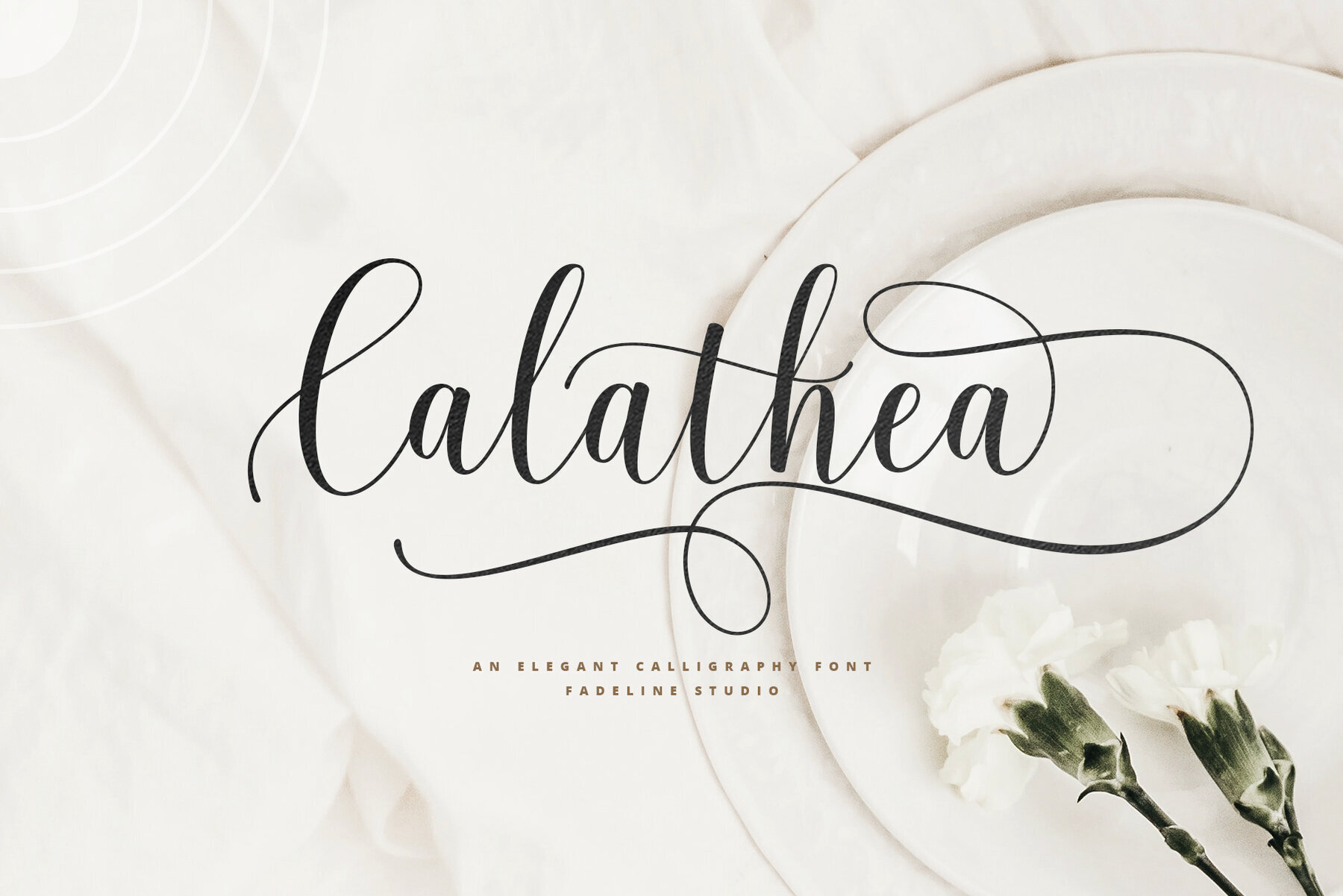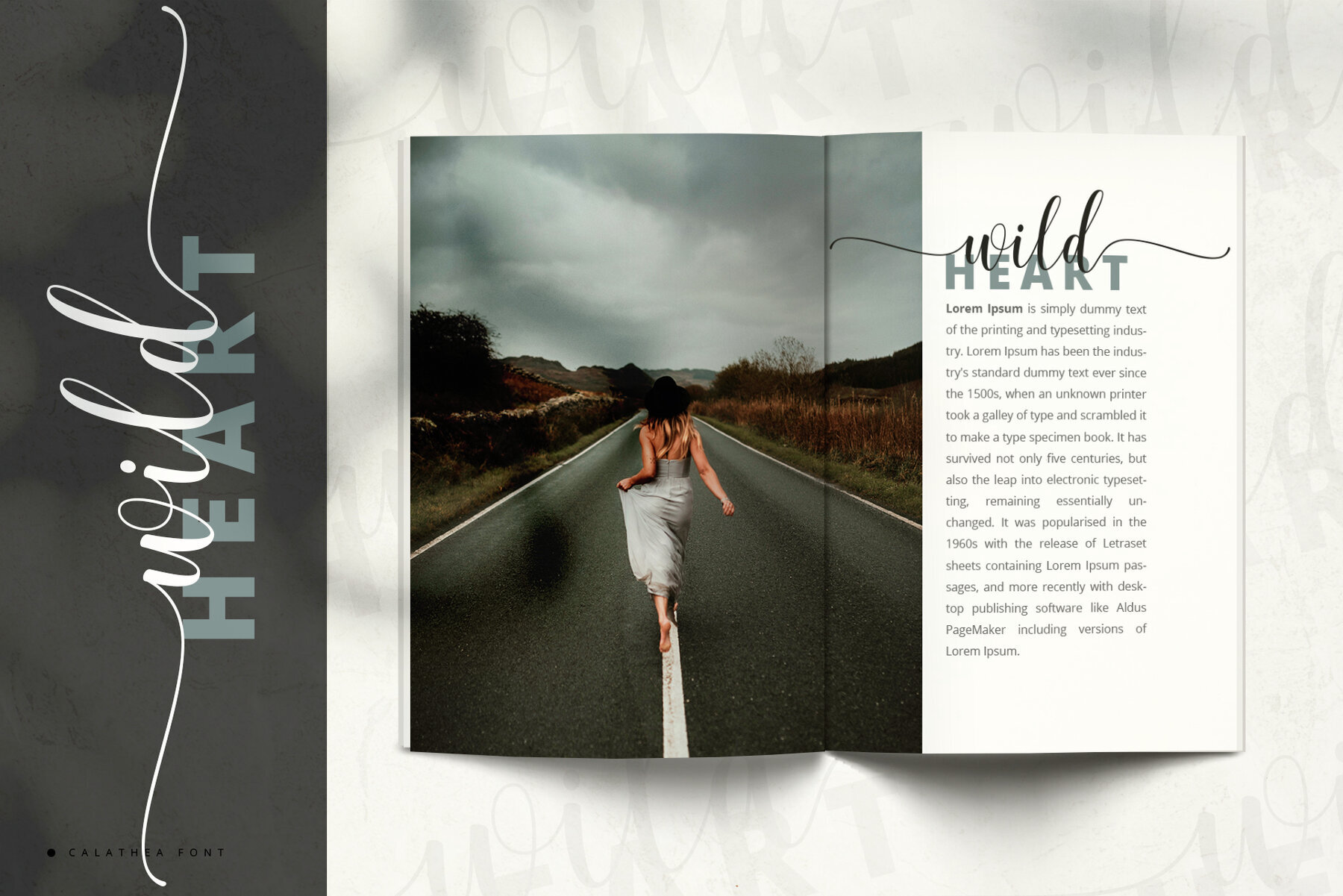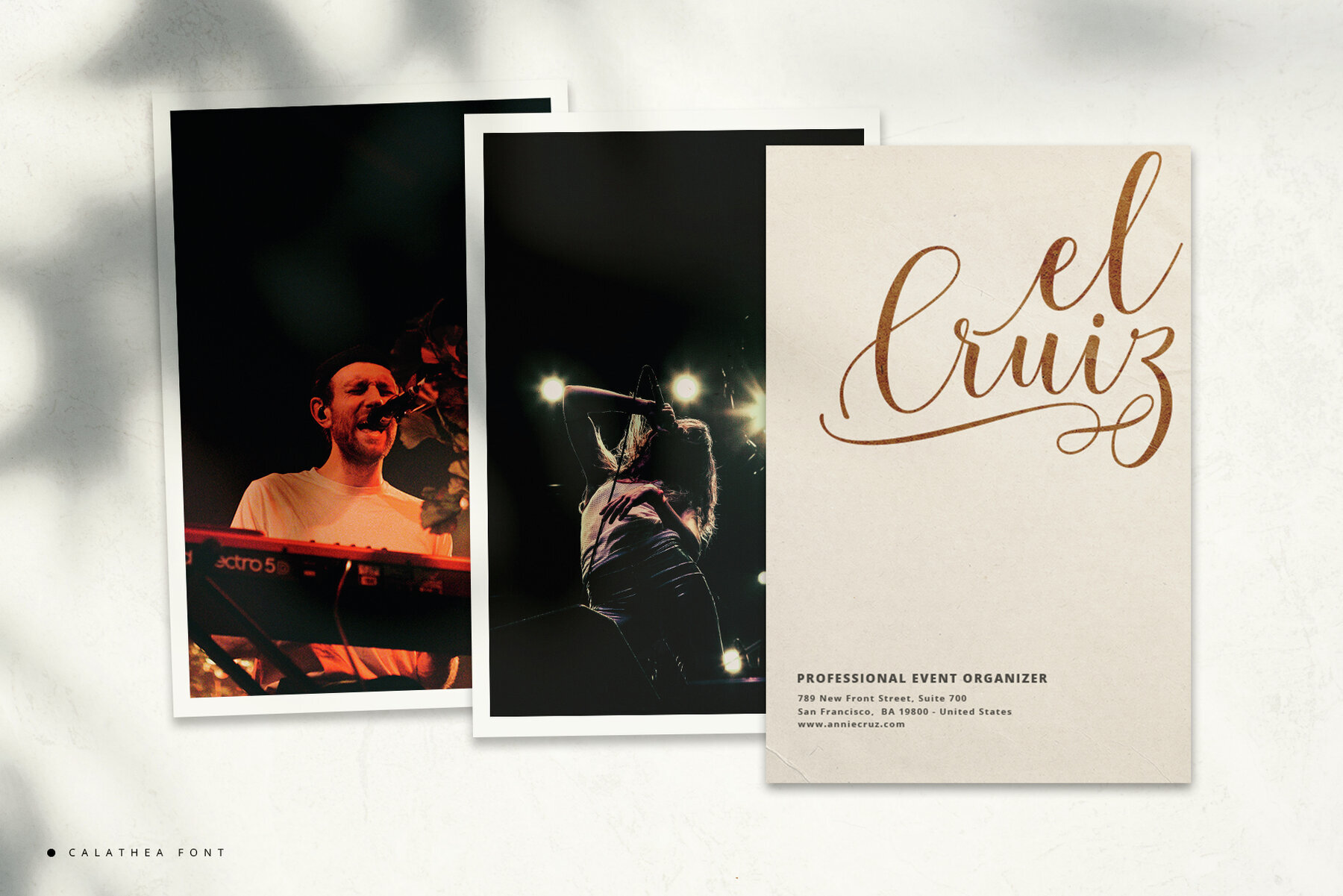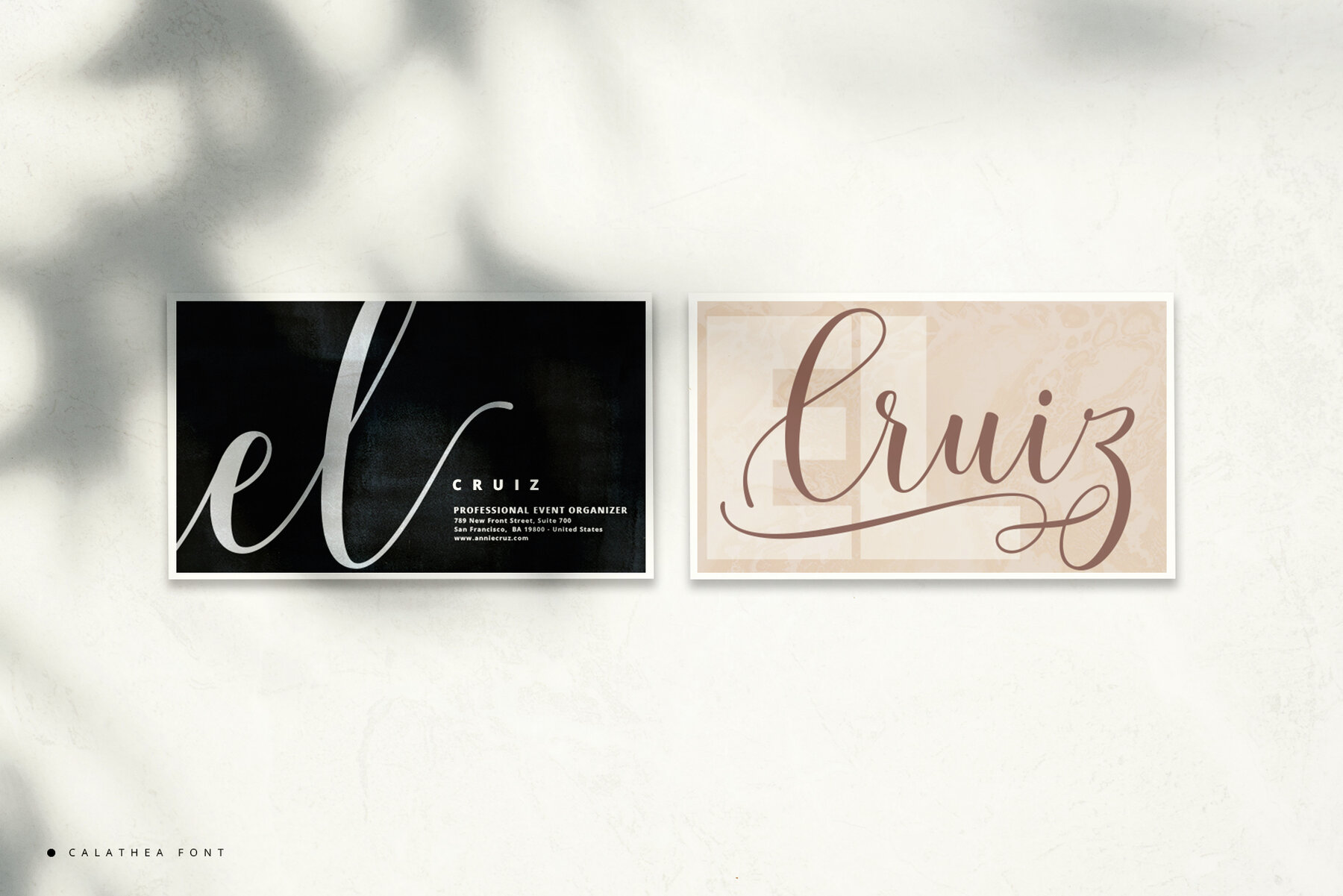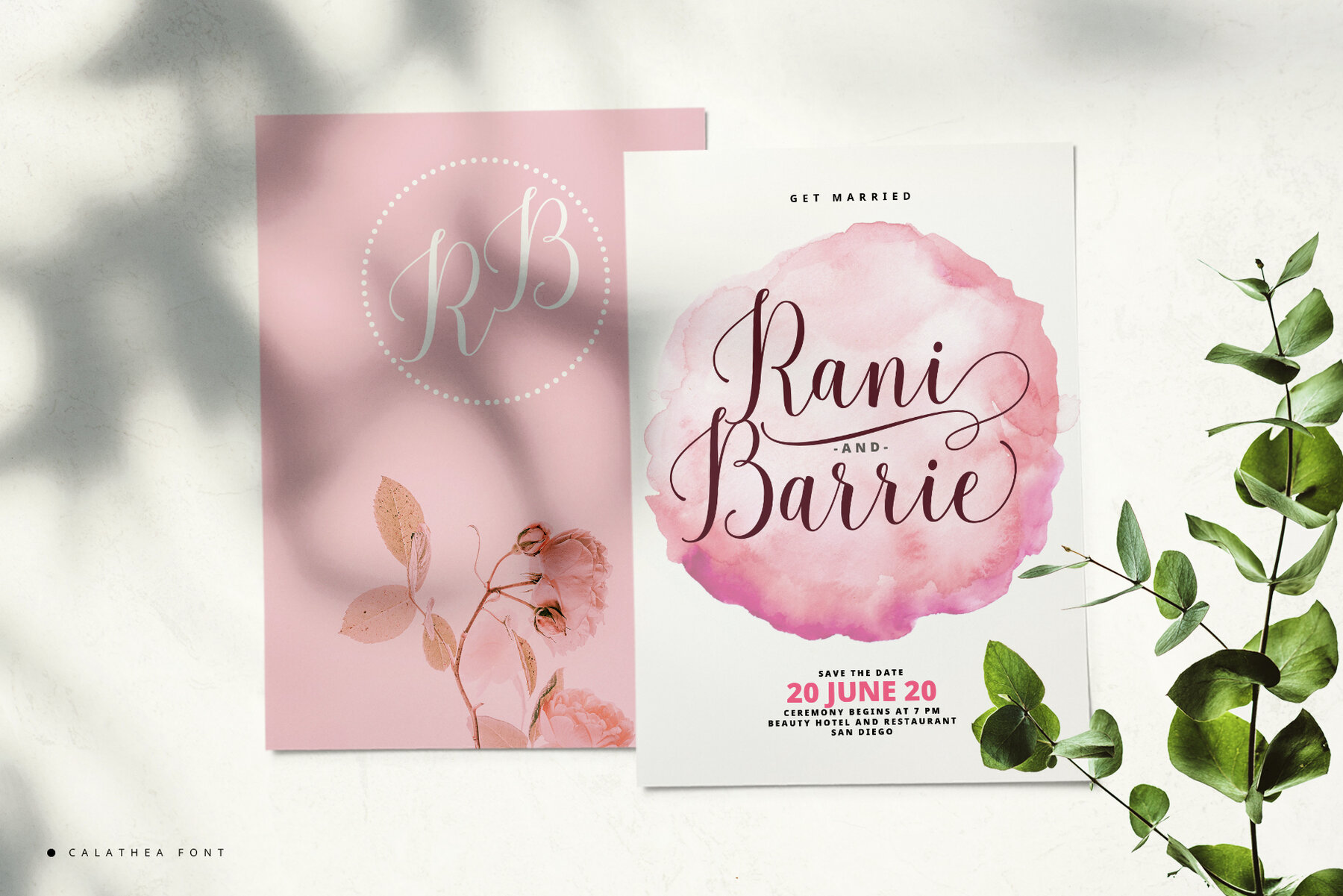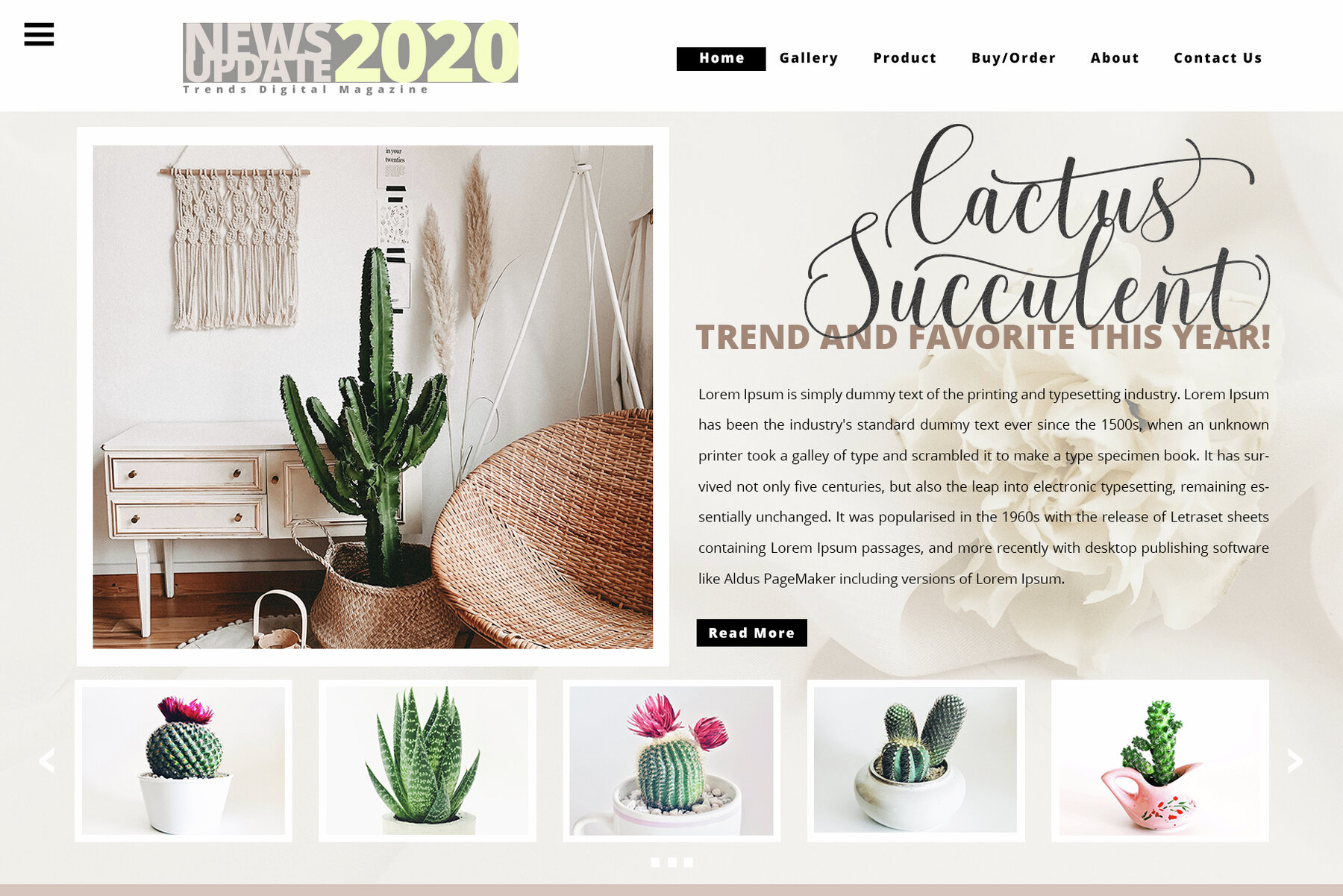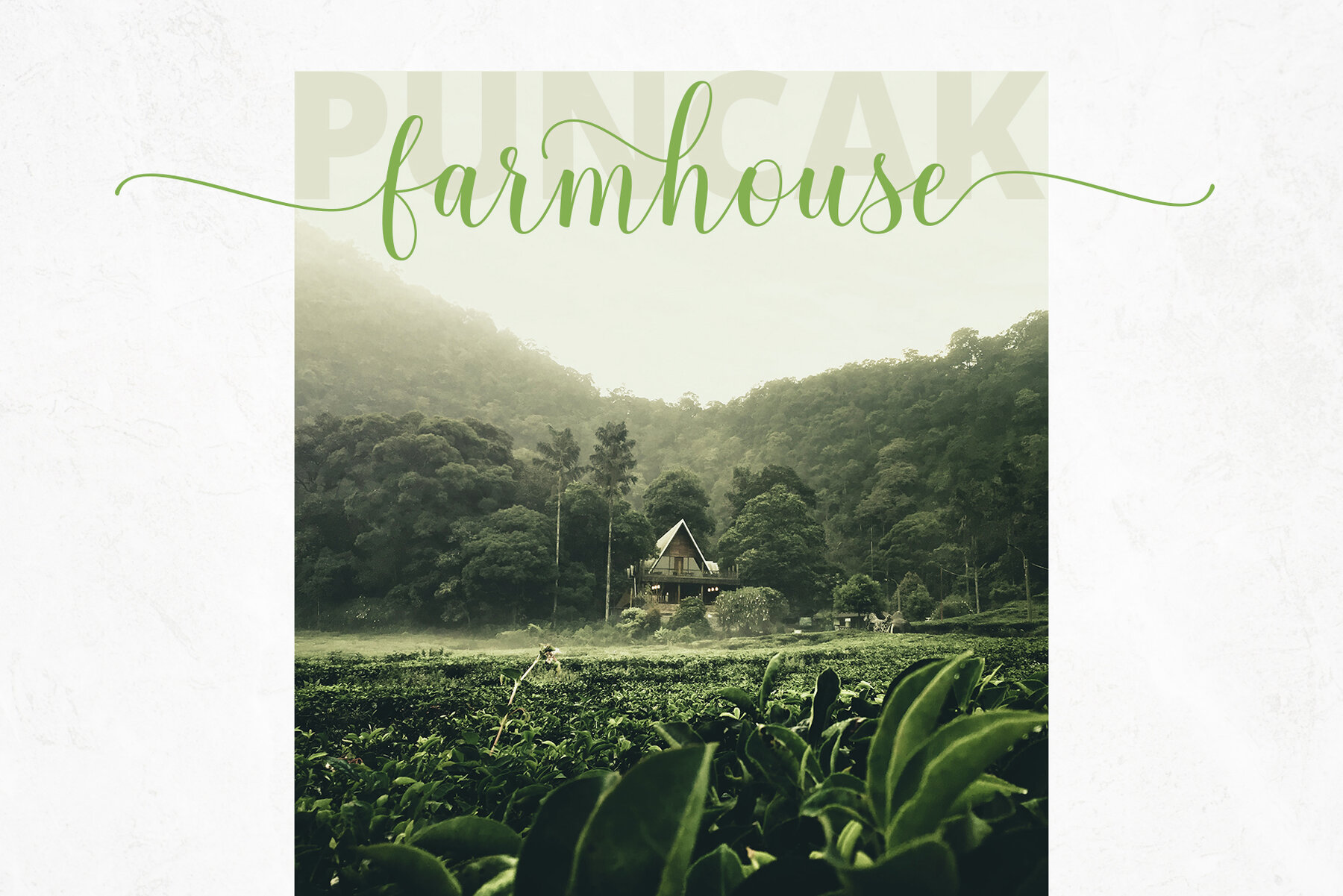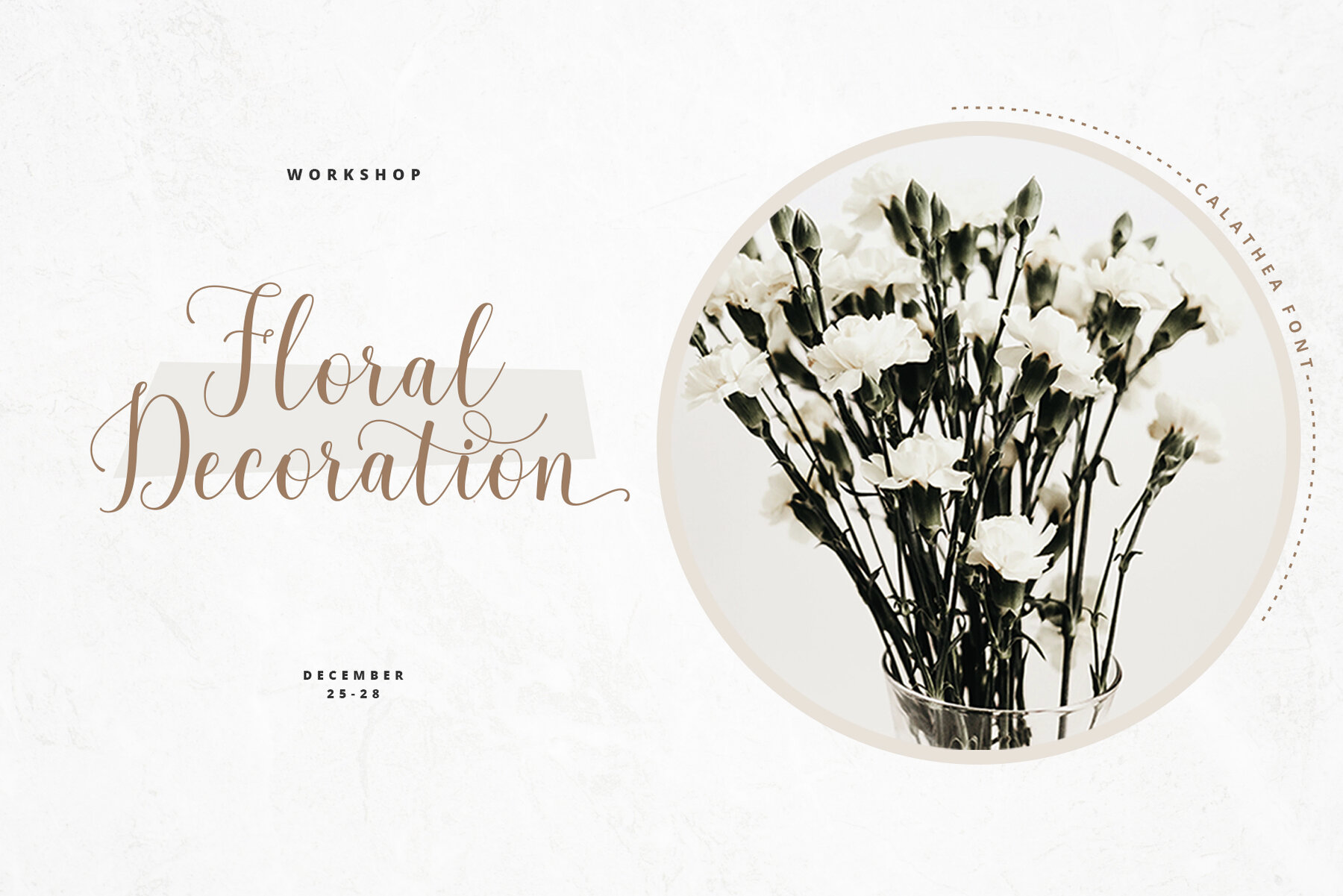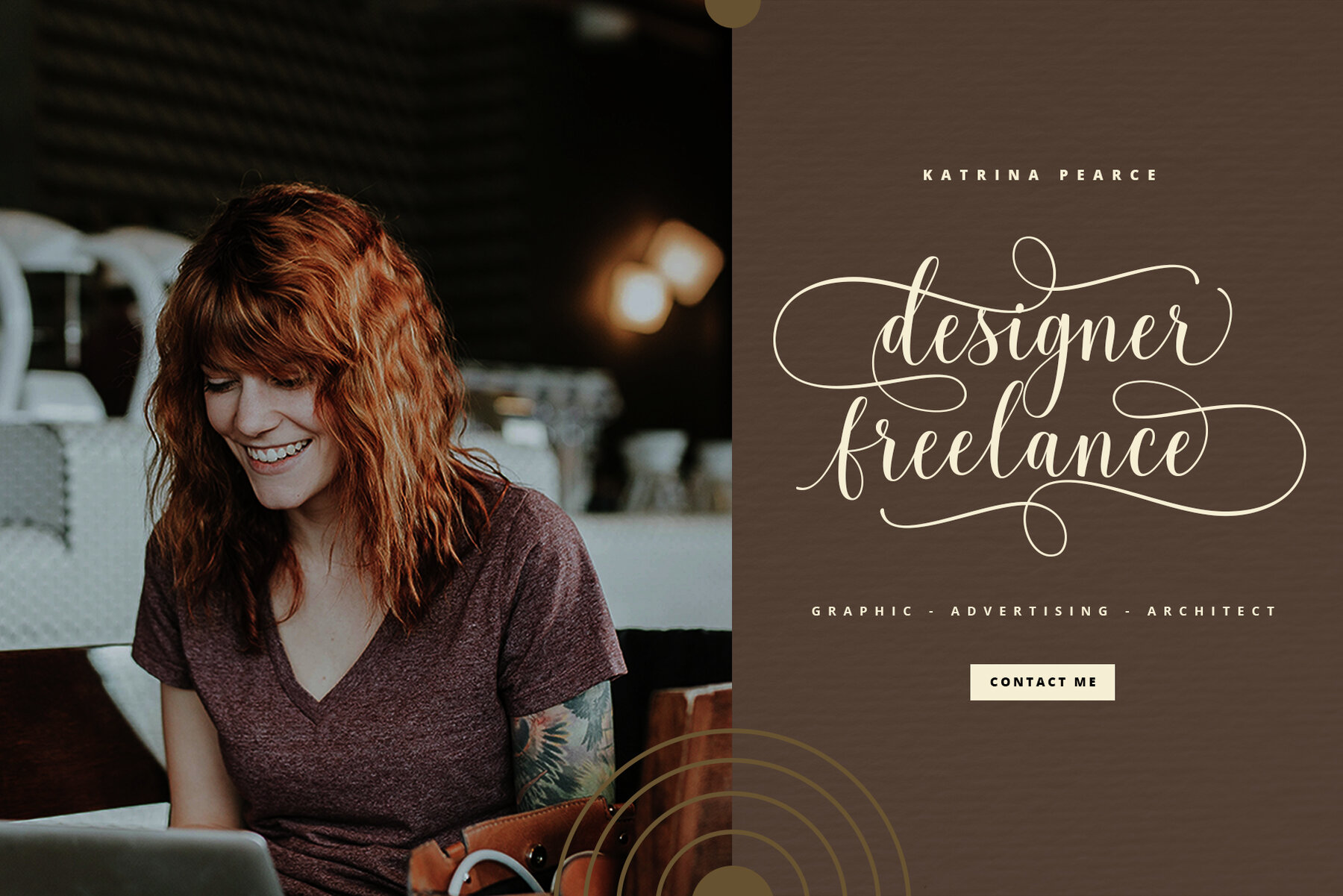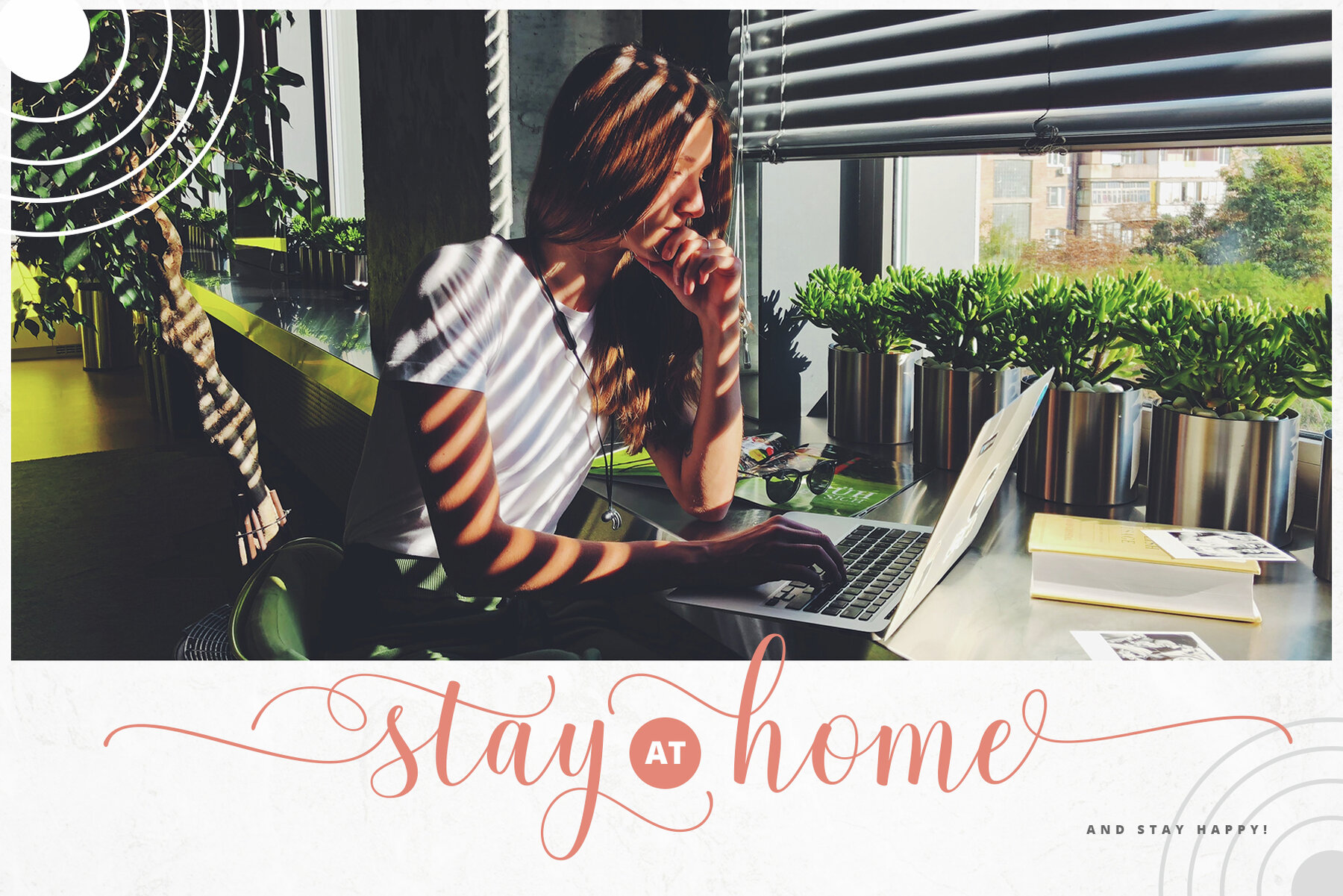
Calathea Script Font
Calathea Script
Introducing Calathea Script, an exquisite calligraphy font that blends casual elegance with luxurious flair. Designed with meticulous care and attention, this upright script captures a unique character that is both graceful and stylish. Featuring an impressive 584 glyphs, Calathea Script offers versatility to suit various creative projects.Calathea Script